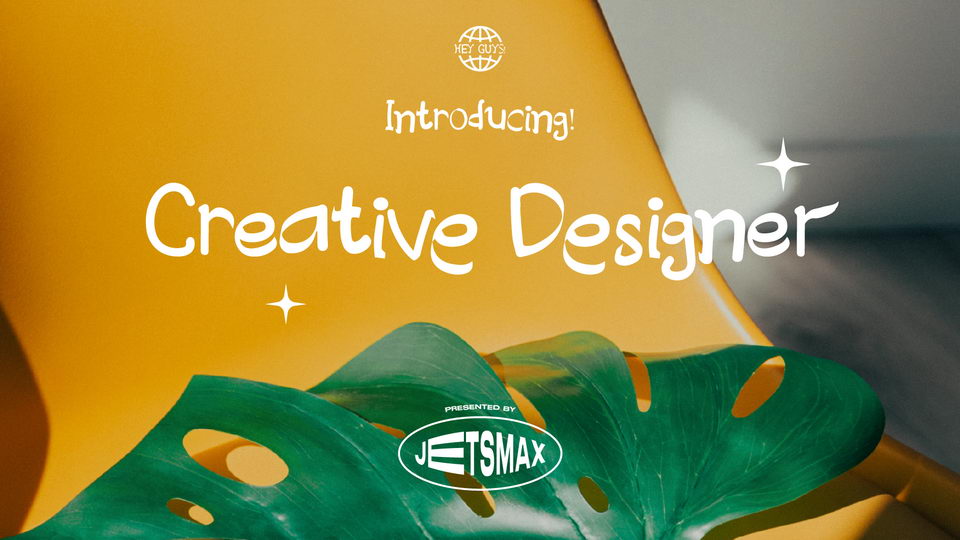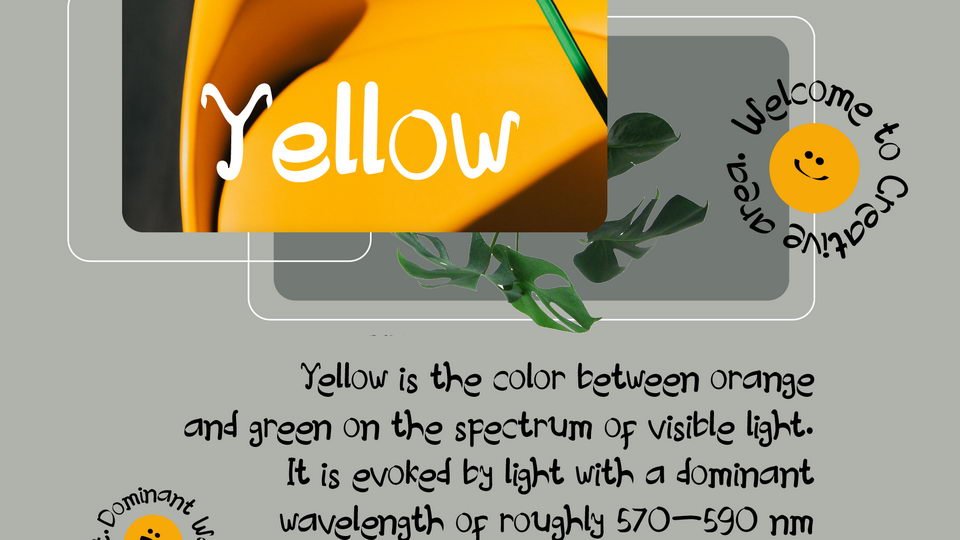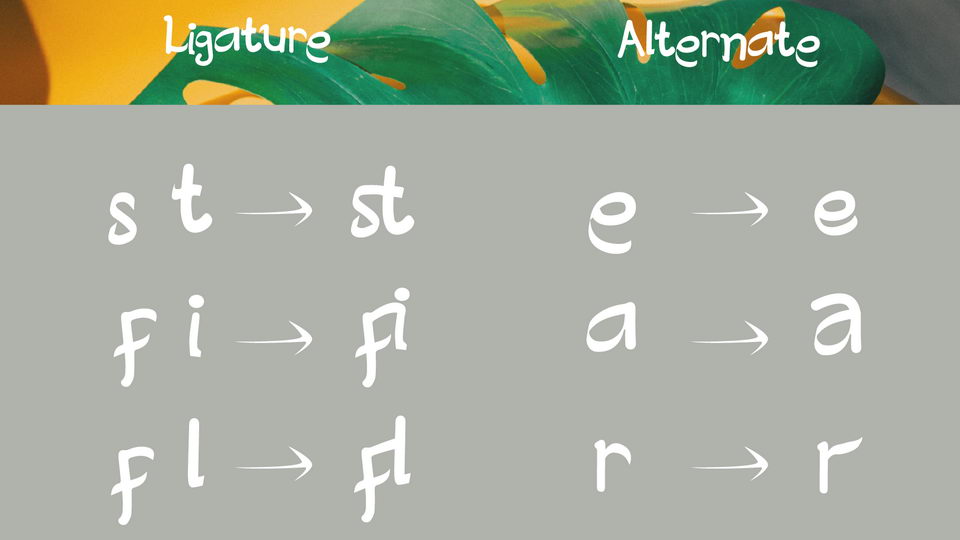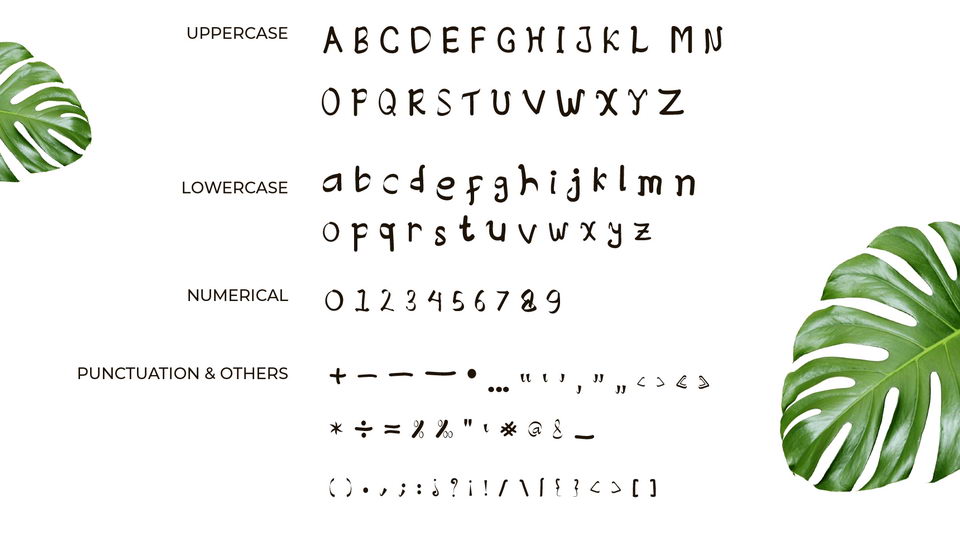
Creative Designer is a font that represent you the most, a designer with unlimited creative ideas running around your head. With the unique combination of brush and hand writing style of this font, it will give your designs the authentic groovy look.
Creative Designer font is suitable for variety of creative projects such as branding logos, social media posts, advertisements, and so much more. Let’s show your creative mind to the world!